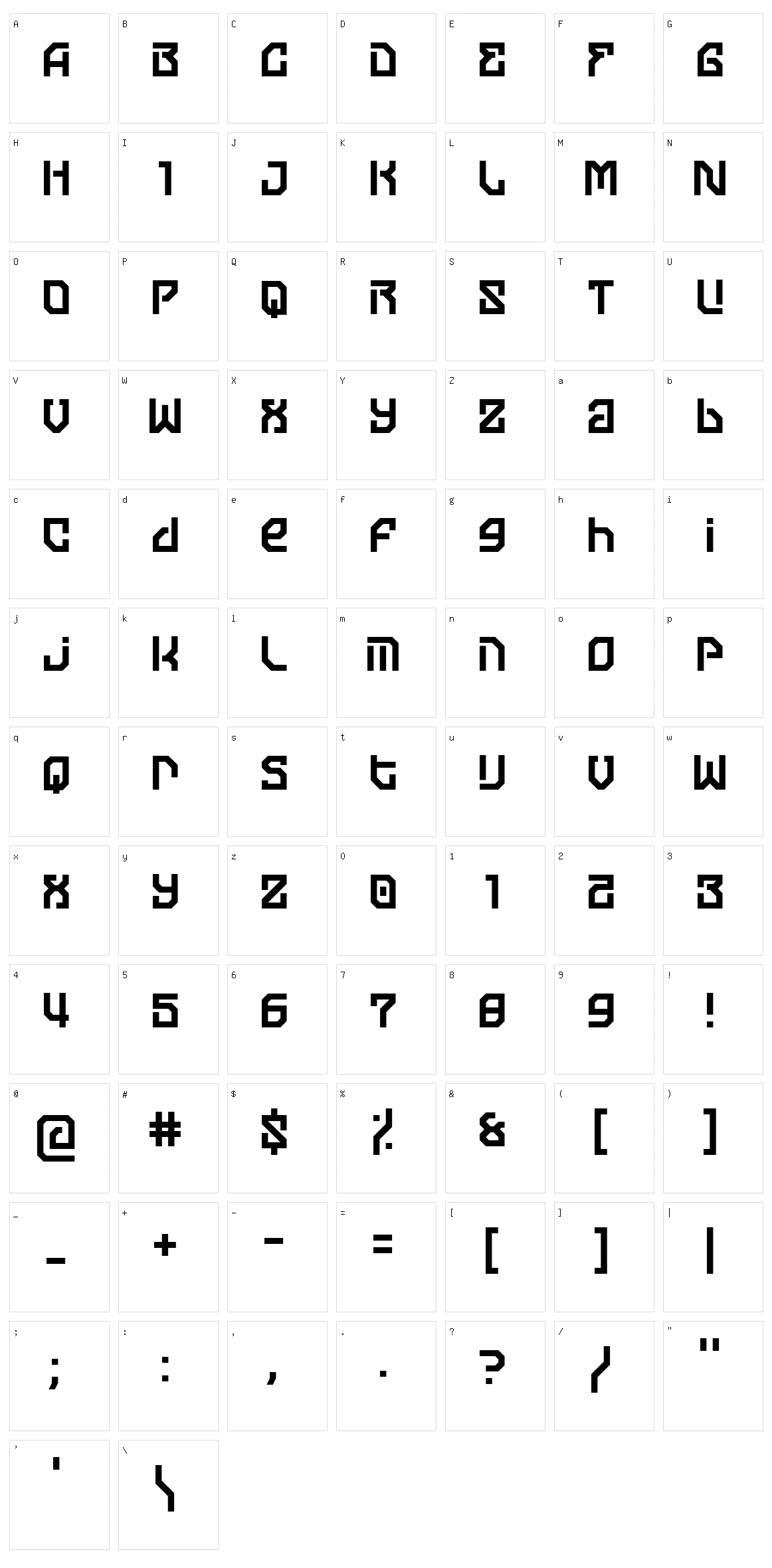
Moon of Jupiter
MOON OF JUPITER is a sci-fi square font, made to be displayed on spaceships from the entire universe (assuming they use latin or cyrillic letters).